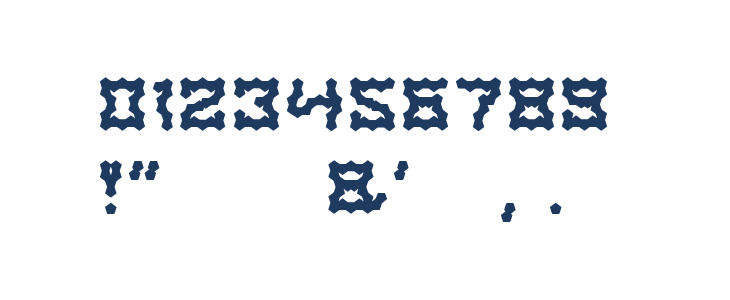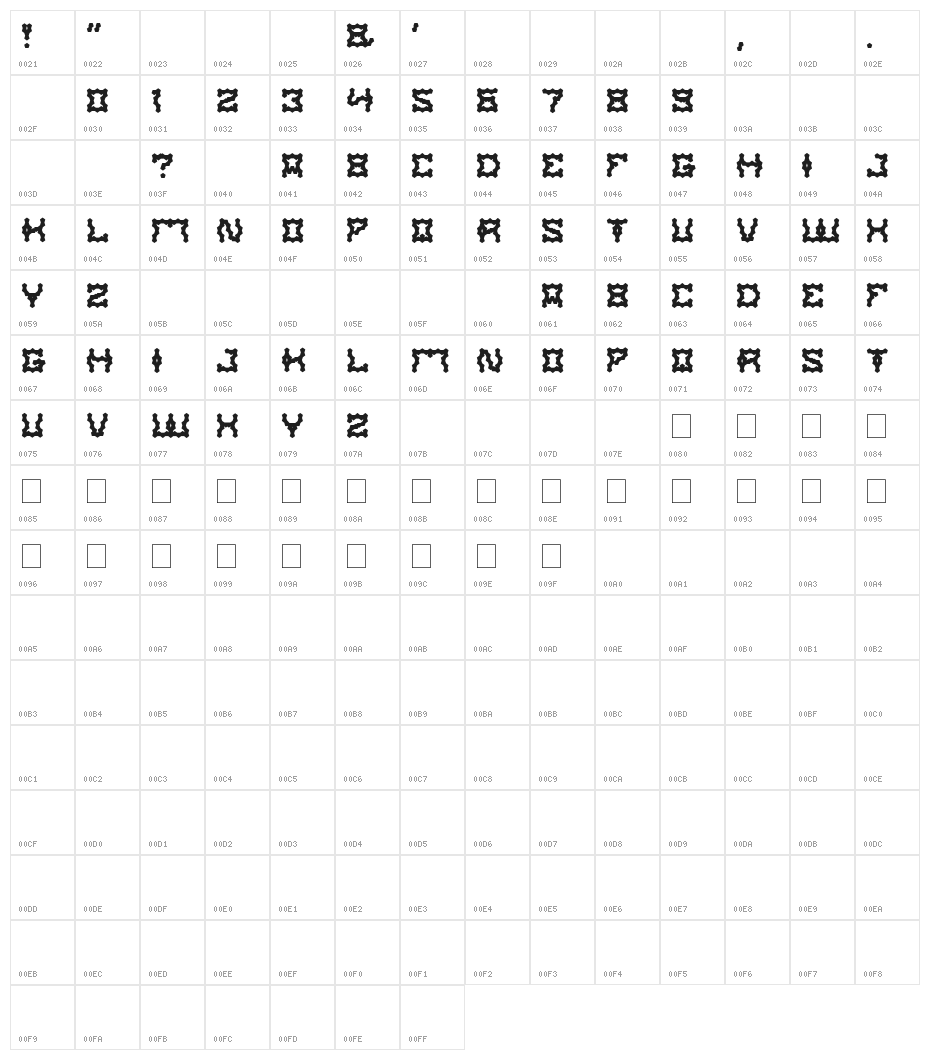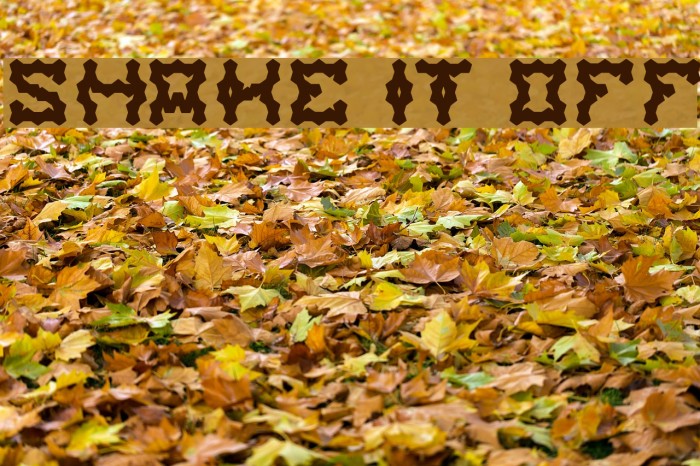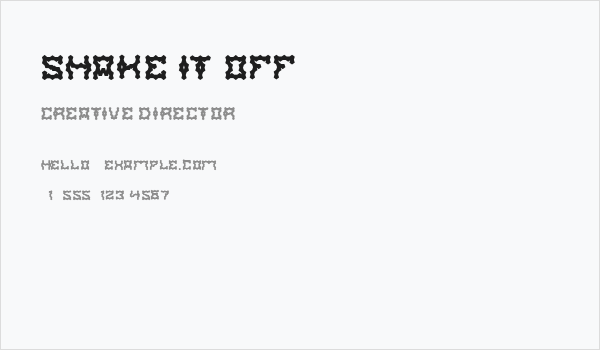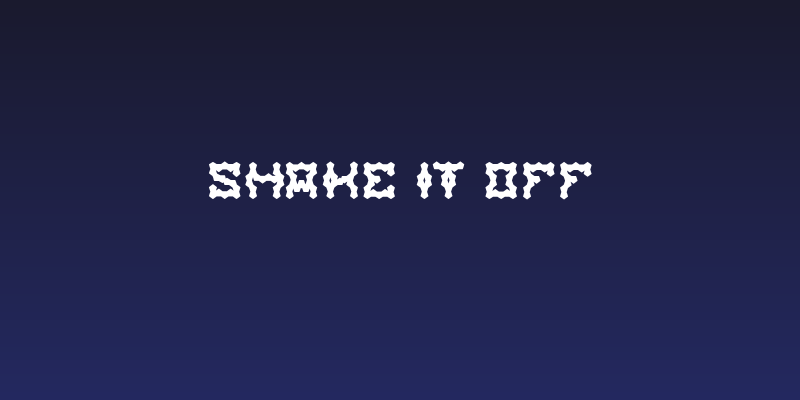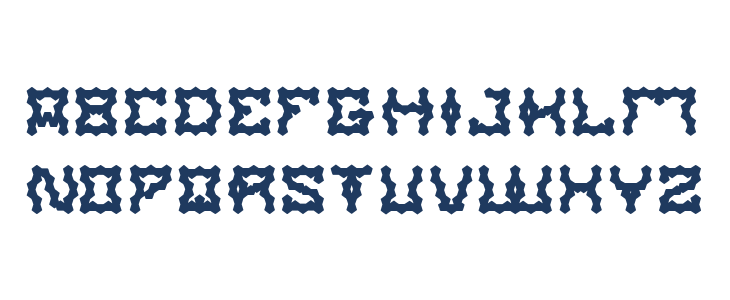
shake it off Font
shake it off Description
This font features a bold and jagged design, reminiscent of a rugged, organic texture. Each character is uniquely crafted with sharp, irregular edges, giving it a dynamic and edgy appearance. The uppercase and lowercase letters maintain a consistent style, with a strong emphasis on geometric forms and angular cuts. The numbers and special characters follow the same aesthetic, ensuring a cohesive look across all elements. This font's distinctive style makes it stand out, ideal for projects that require a bold statement.